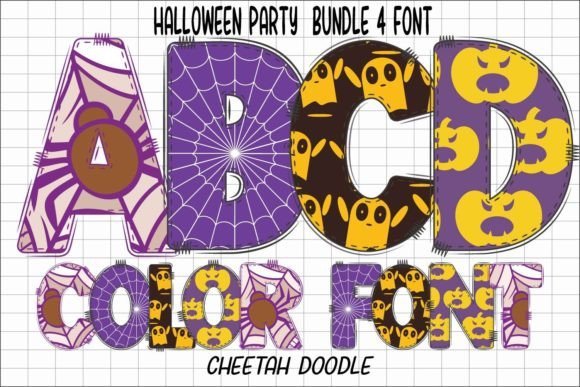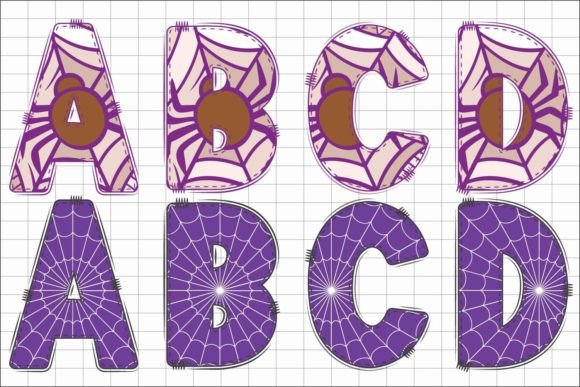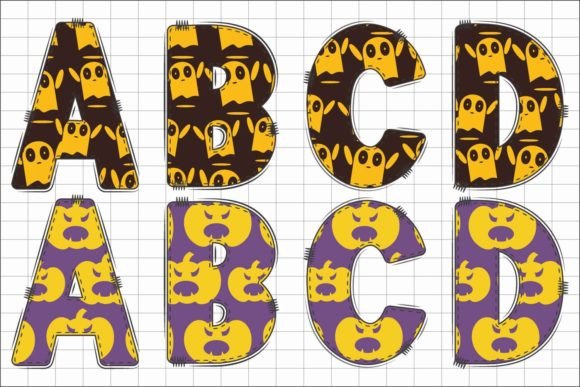
Halloween Magic in Every Letter
As you sit down at your craft table, surrounded by glittering decorations and twinkling lights, a spark of creativity ignites within you. The air is filled with the promise of spooky delights and sugary treats. It’s the perfect moment to let your imagination run wild and bring your Halloween vision to life. And that’s exactly what the Halloween Party Font is designed to help you do.
This enchanting font set, comprising four vibrant colors, is a must-have for designers who want to add a touch of Halloween magic to their projects. From invitations and party decorations to spooky signs and haunted house designs, the Halloween Party Font is the perfect tool to bring your creative ideas to the forefront. With its compatibility with popular design programs like PhotoShop, Illustrator, and Silhouette, this font is sure to become a staple in your design arsenal.
Halloween Party Font Key Features
- Unique Characteristics: Distressed, spooky, and eerie font design, perfect for Halloween-themed projects and designs
Halloween Party Font Review
At first glance, Halloween Party Font ✨ seems like a fun and spooky addition to any design project. The font’s irregularly-shaped letters and bold lines immediately evoke a sense of Halloween spirit.
The font works well in situations where you want to add a playful touch to your design, such as invitations, social media graphics, or decorations. The characters are easily recognizable and add a whimsical feel to your text.
Here are some pros and cons to consider:
- ✨ Easy to read, even in smaller font sizes
- ✨ Works well in bold and italic styles
- ✨ Can be used for a variety of design projects, from invitations to social media graphics
- ⚠️ Limited use cases for formal or professional designs
- ⚠️ Some characters may not render correctly in certain fonts or software
Overall, I think Halloween Party Font is a fun addition to any designer’s toolkit. While it may not be suitable for every project, it’s perfect for adding a touch of Halloween spirit to your designs.
Tips for Getting the Most Out of Halloween Party Font
To get the most out of Halloween Party Font, use it for spooky-themed projects, such as:
- Halloween party invitations
- Spooky decorations
- Horror movie posters
- Creepy social media graphics
Remember to pair the font with other Halloween-themed graphics and colors to create a cohesive look.